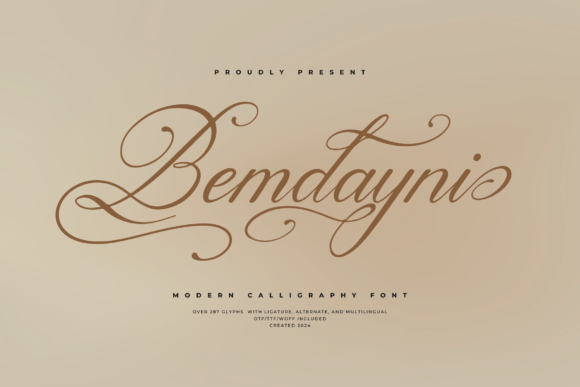
Bemdayni Font: Elevate Your Designs with Elegant Calligraphy
Bemdayni Font is a stunning, modern calligraphy font that has been making waves in the design world. With its smooth, flowing letters, this font is perfect for adding a touch of elegance to various creative projects, including invitations, greeting cards, and more. In this article, we’ll dive into the world of Bemdayni Font, exploring its features, benefits, and uses, as well as provide tips on how to make the most of this beautiful font.
What is Bemdayni Font?
Bemdayni Font is a stylish and modern calligraphy font designed to bring a touch of sophistication to your designs. Its smooth, flowing letters are carefully crafted to create a sense of elegance and refinement, making it perfect for a wide range of creative projects.
Whether you’re a designer, artist, or simply someone who loves to create, Bemdayni Font is an excellent choice for adding a touch of luxury to your work. From wedding invitations and greeting cards to branding and advertising materials, this font is sure to make your designs stand out.
Key Features of Bemdayni Font
- Smooth, flowing letters: Bemdayni Font features smooth, flowing letters that are carefully crafted to create a sense of elegance and refinement.
- Modern calligraphy style: This font boasts a modern calligraphy style that’s perfect for adding a touch of sophistication to your designs.
- Elegant and refined: Bemdayni Font is designed to bring a sense of elegance and refinement to your designs, making it perfect for high-end projects.
- Versatile: This font is suitable for a wide range of creative projects, from invitations and greeting cards to branding and advertising materials.
Benefits of Using Bemdayni Font
So, why choose Bemdayni Font for your next project? Here are just a few benefits of using this stunning font:
- Adds elegance and sophistication: Bemdayni Font is designed to bring a touch of elegance and sophistication to your designs, making it perfect for high-end projects.
- Stand out from the crowd: With its unique, modern calligraphy style, Bemdayni Font is sure to make your designs stand out from the crowd.
- High-quality: Bemdayni Font is a high-quality font that’s designed to deliver exceptional results.
Uses of Bemdayni Font
Bemdayni Font is a versatile font that can be used for a wide range of creative projects, including:
- Wedding invitations: Add a touch of elegance and sophistication to your wedding invitations with Bemdayni Font.
- Greeting cards: Create beautiful, high-end greeting cards with this stunning font.
- Branding and advertising: Use Bemdayni Font to add a touch of luxury to your branding and advertising materials.
- Stationery: Create elegant and refined stationery with this beautiful font.
Tips for Using Bemdayni Font
Here are a few tips for using Bemdayni Font to get the most out of this beautiful font:
- Use it sparingly: Bemdayni Font is a statement font, so use it sparingly to add emphasis to your designs.
- Pair it with other fonts: Experiment with pairing Bemdayni Font with other fonts to create a unique and visually appealing design.
- Adjust the size and color: Play around with the size and color of Bemdayni Font to create a design that’s tailored to your needs.
- Experiment with different styles: Don’t be afraid to experiment with different styles and techniques to get the most out of Bemdayni Font.
Bemdayni Font is a stunning, modern calligraphy font that’s perfect for adding a touch of elegance and sophistication to your designs. With its smooth, flowing letters and versatile style, this font is suitable for a wide range of creative projects, from invitations and greeting cards to branding and advertising materials.
Whether you’re a designer, artist, or simply someone who loves to create, Bemdayni Font is an excellent choice for taking your designs to the next level. So why not give it a try and see the difference it can make?
- What is Bemdayni Font?: Bemdayni Font is a stylish and modern calligraphy font with smooth, flowing letters.
- What is Bemdayni Font used for?: Bemdayni Font is suitable for a wide range of creative projects, including invitations, greeting cards, branding, and advertising materials.